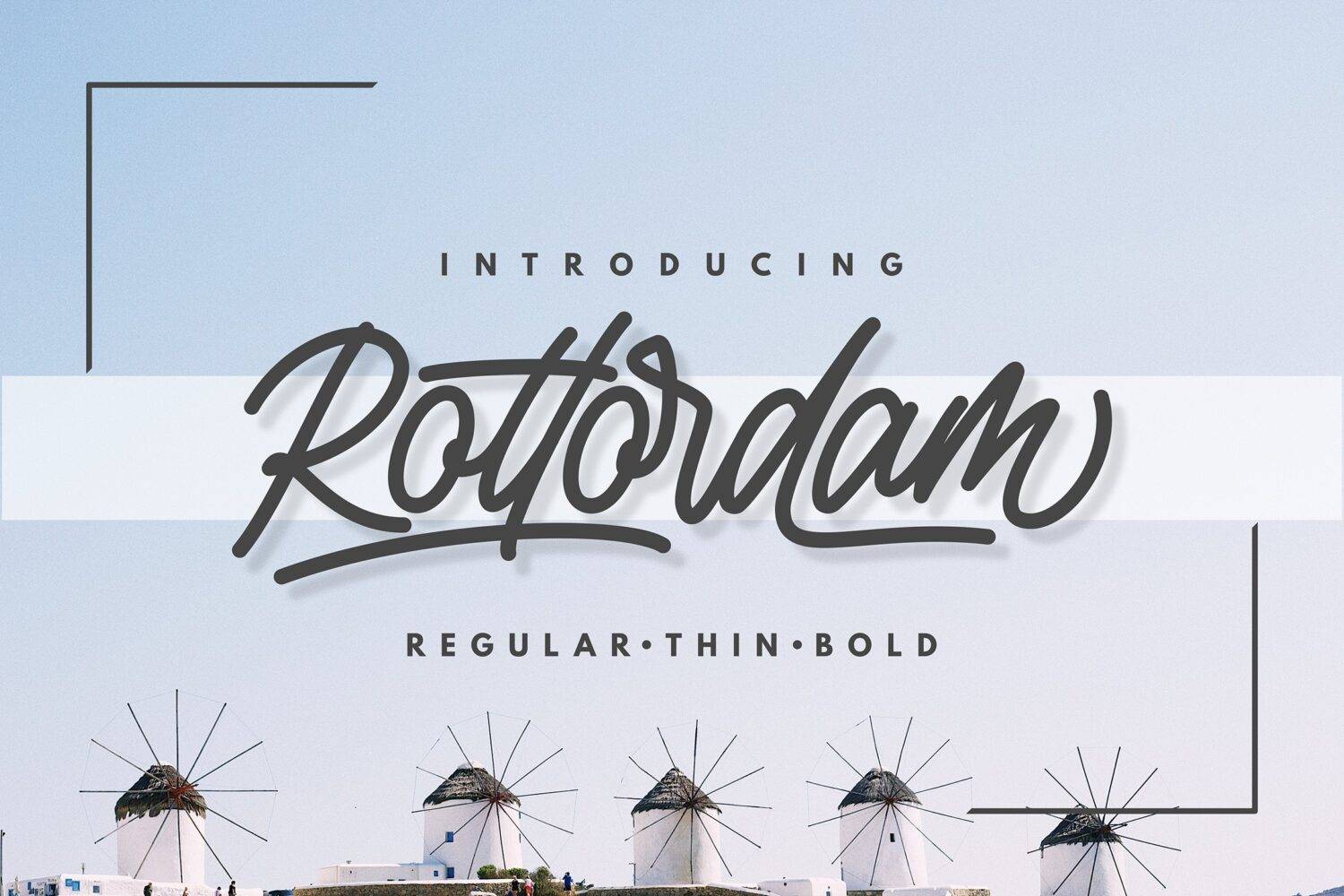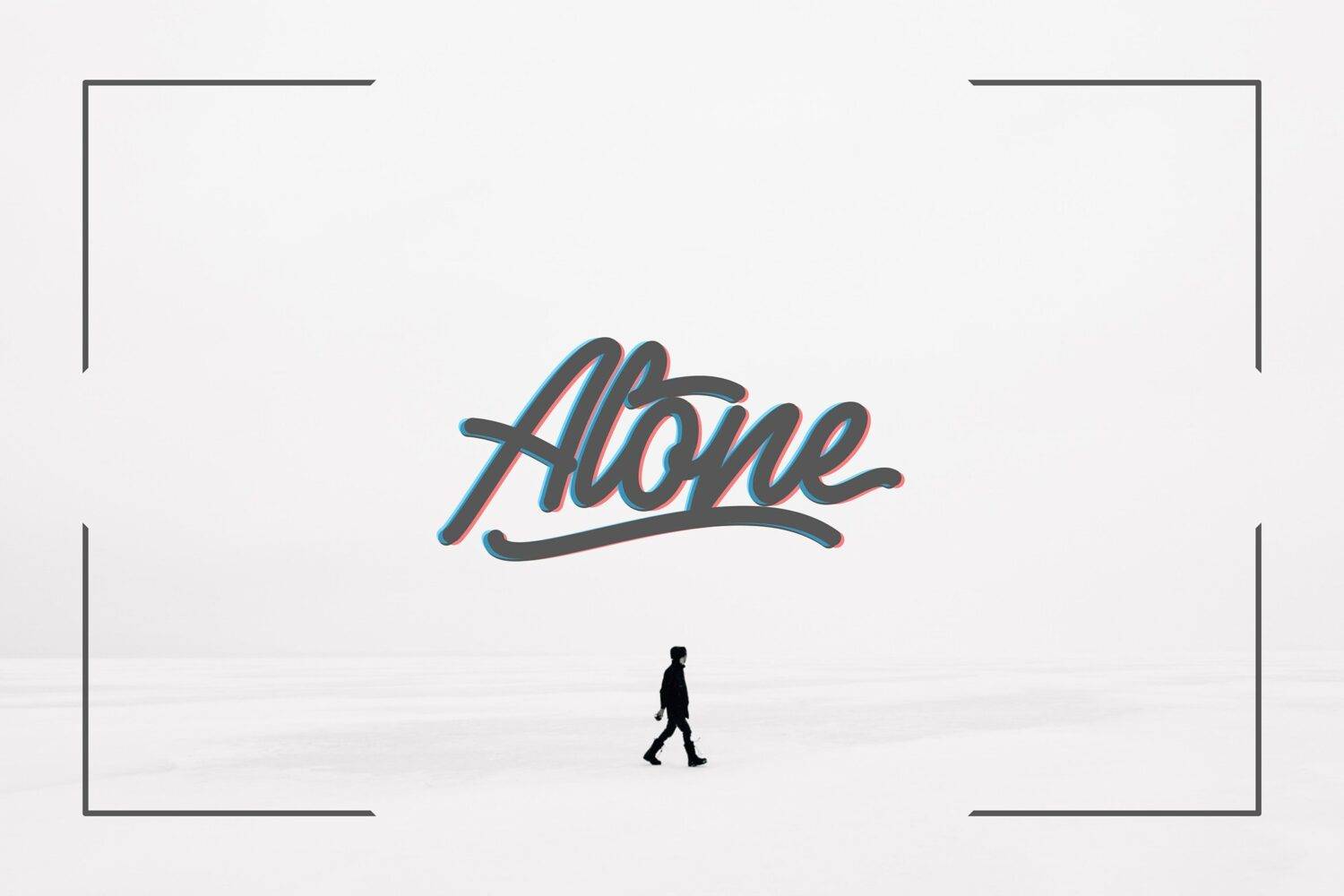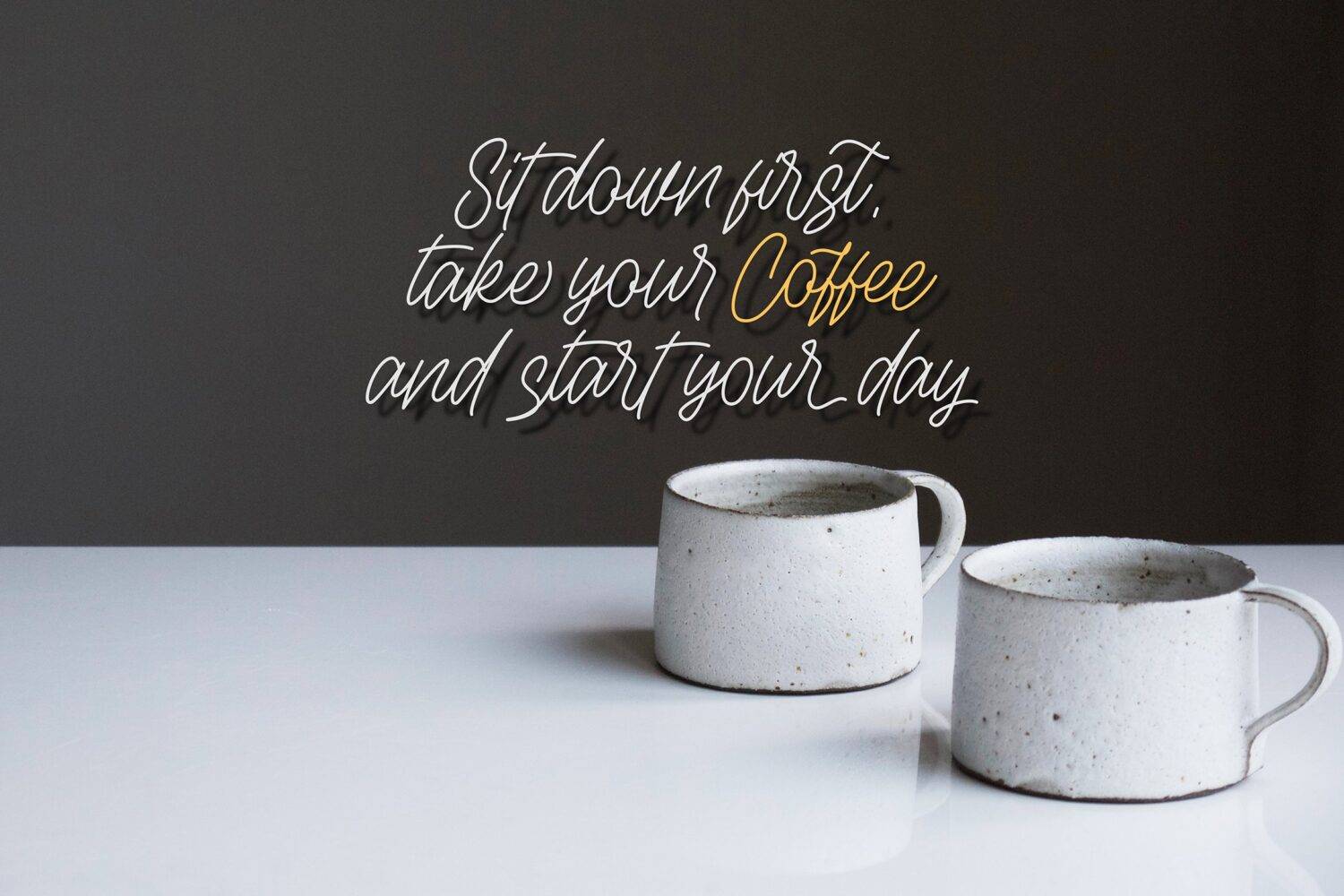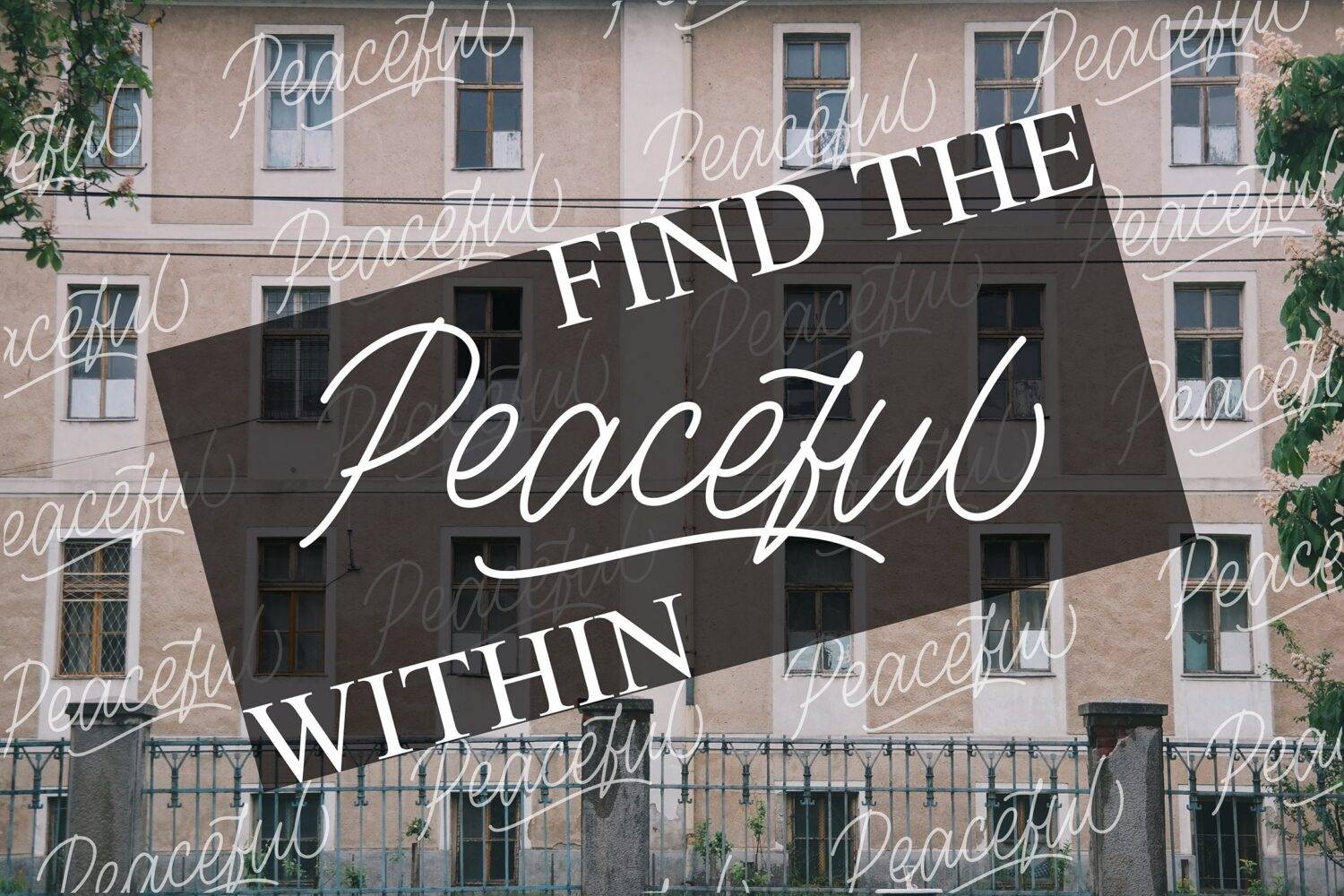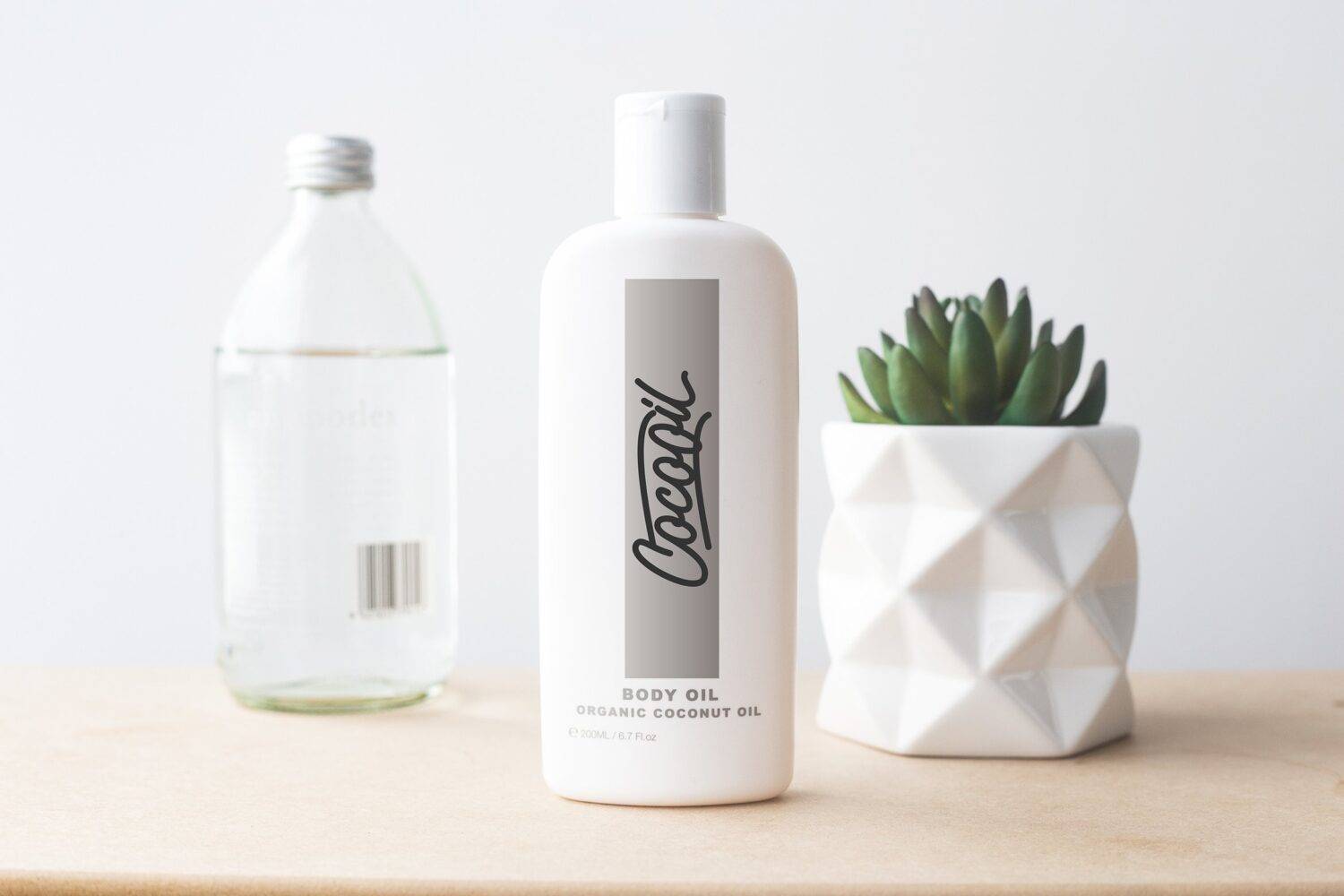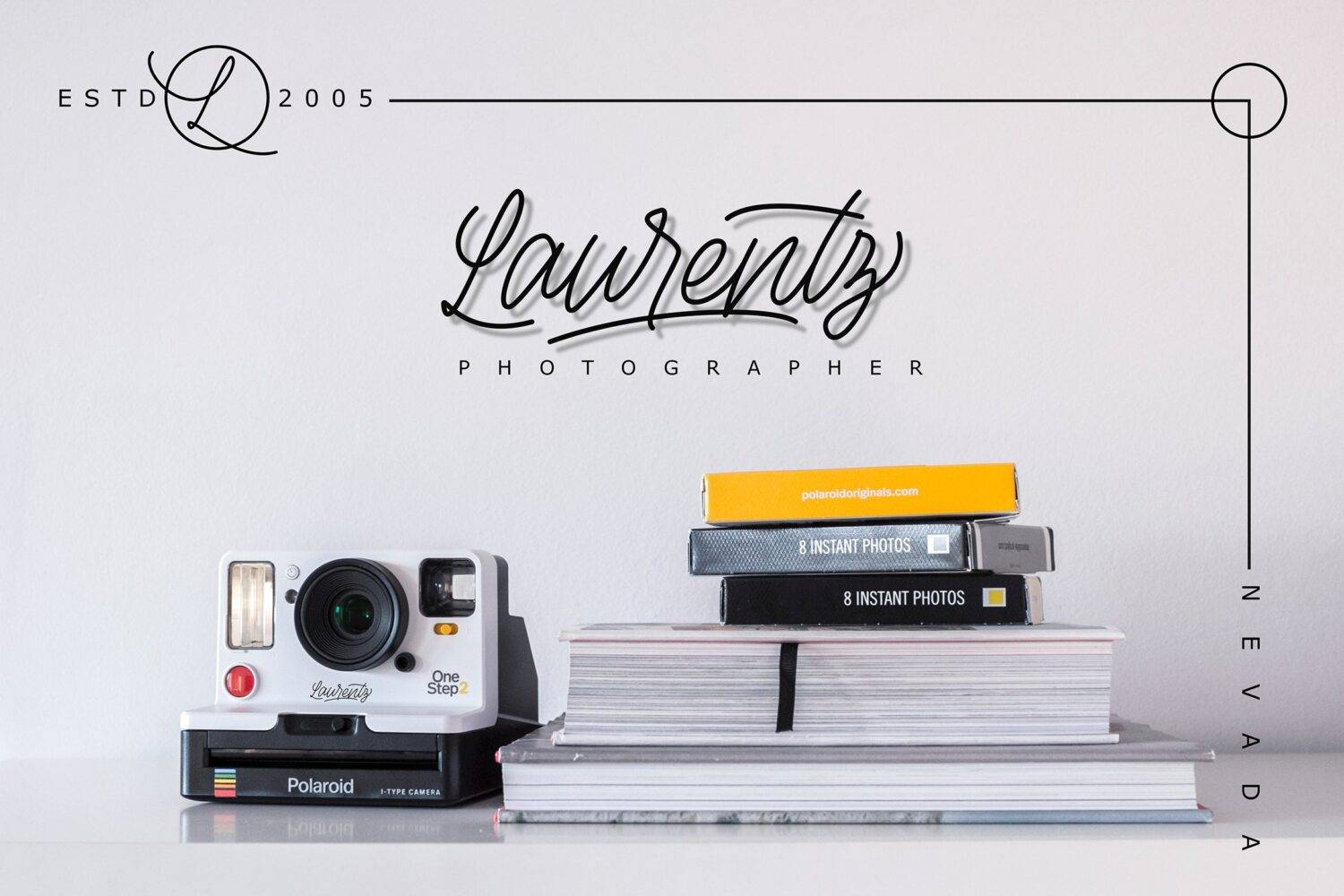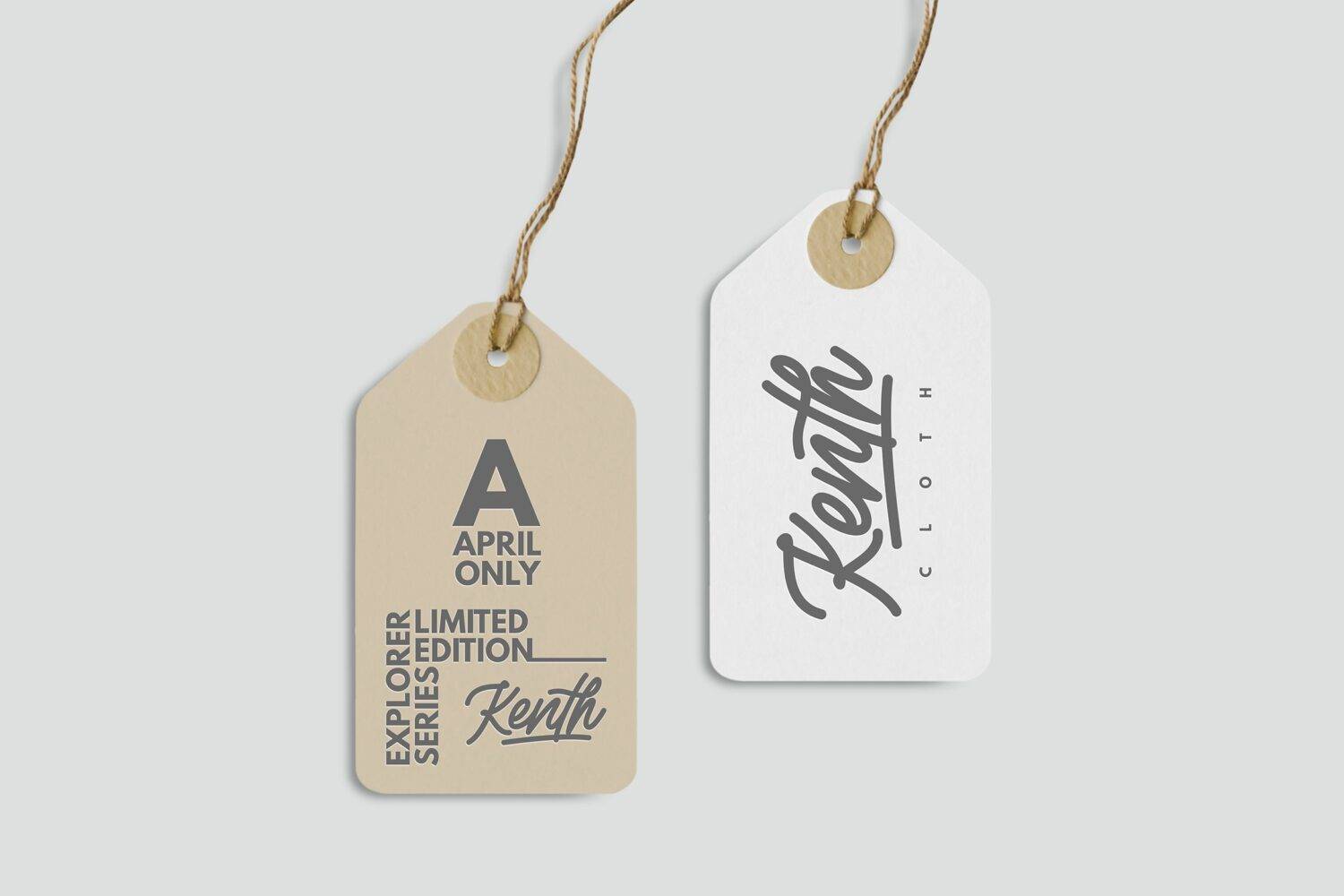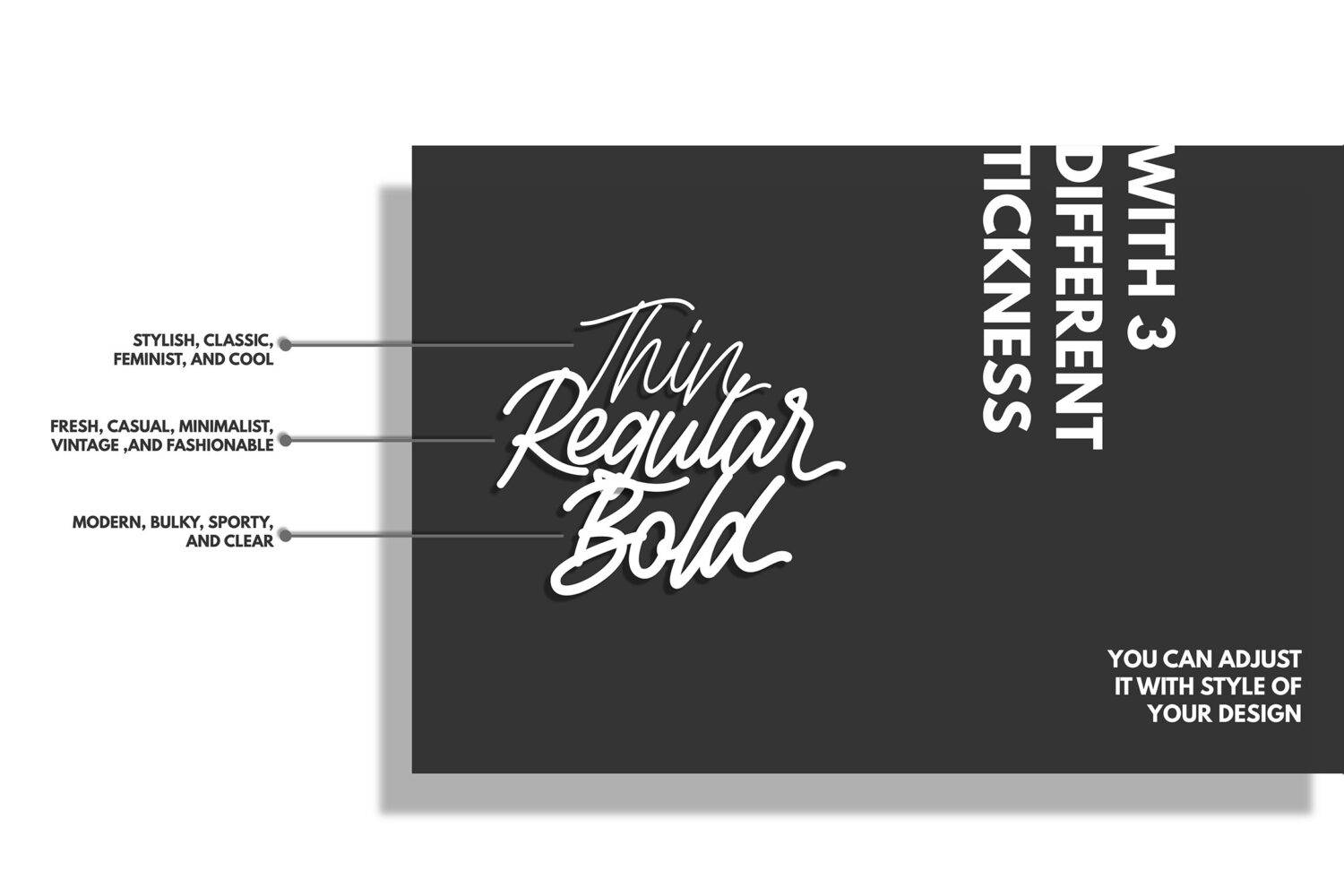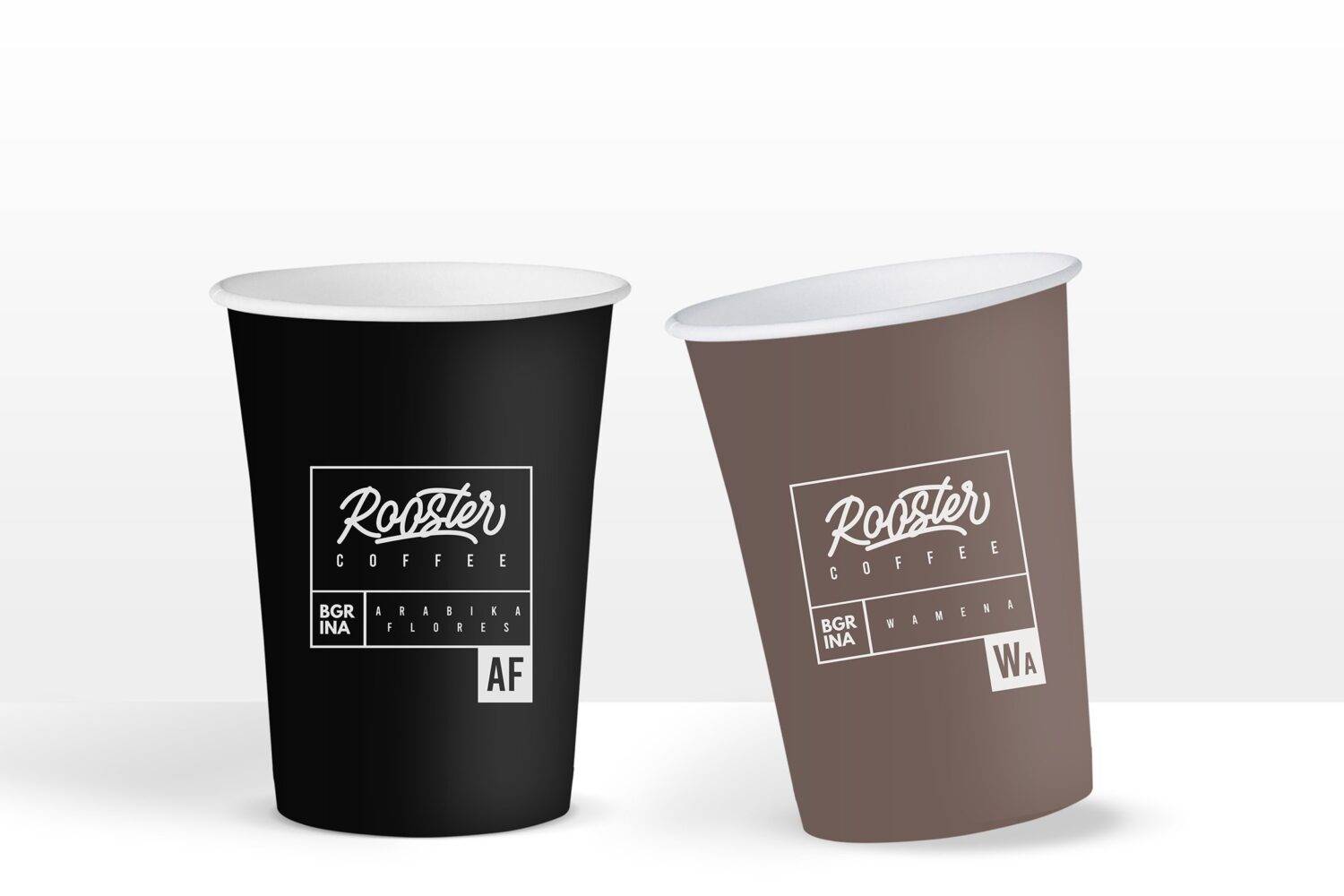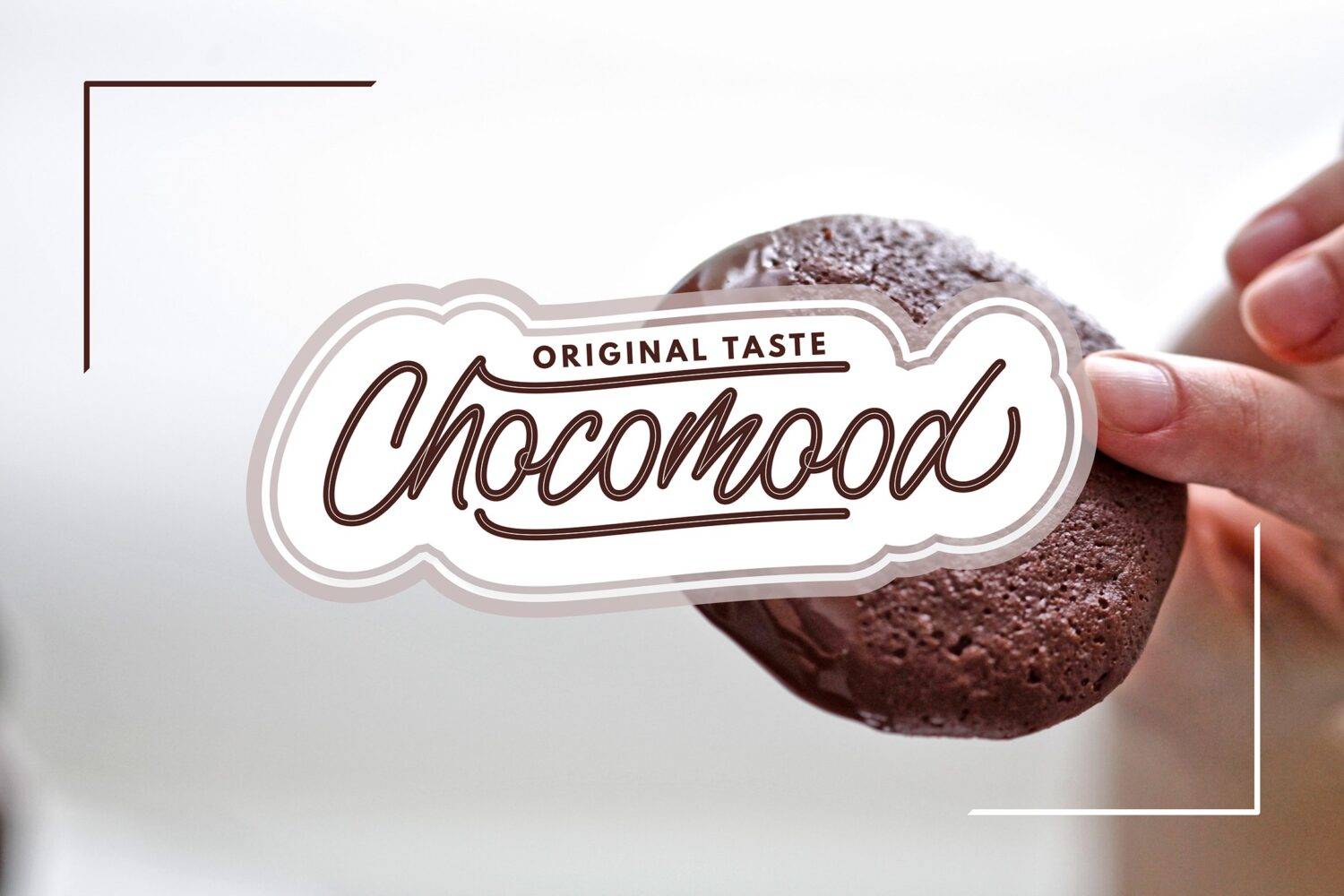
Rottordam Handlettering is a lively and elegant script font that mimics natural handwriting with smooth, flowing strokes and a confident, casual style. Its moderate contrast and connected letterforms make it ideal for adding a personal, creative touch to branding, invitations, and packaging where a warm, approachable feel is desired. This font works beautifully in headlines and logos, lending a friendly yet refined personality.
Rottordam Handlettering Font
About Rottordam Handlettering Font
| Font family | Rottordam Handlettering Font |
| Designer | inpiratype |